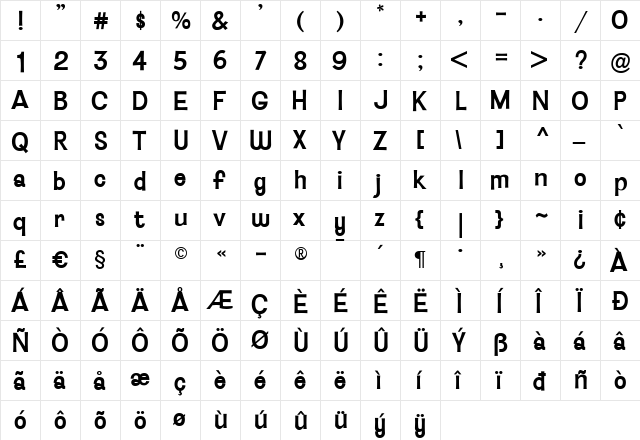
BaileywickGothicJF Medium
Design Context for BaileywickGothicJF Typeface
BaileywickGothicJF takes a clean, functional approach — its unadorned letterforms prioritise legibility and work reliably across screen and print environments.
Font Pairing: Works well alongside a characterful serif or display font that can carry the expressive load while BaileywickGothicJF handles the functional copy.
Pro Tip: Pair BaileywickGothicJF with a display or serif font for headlines — its neutral character makes it an excellent supporting player in complex typographic systems.